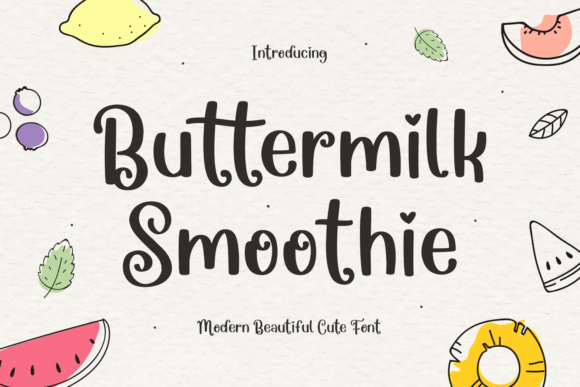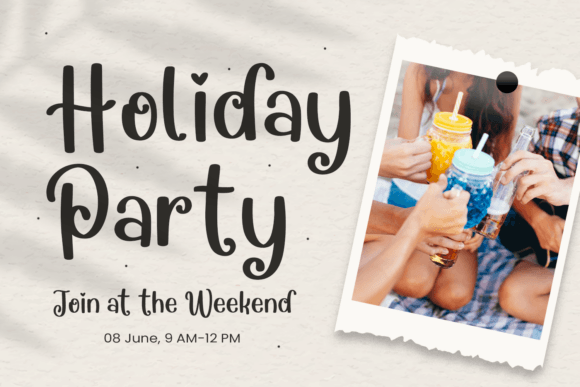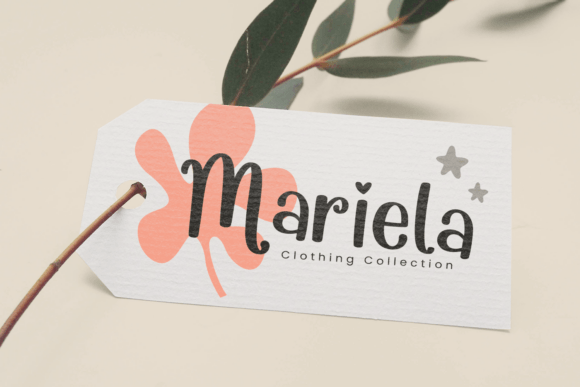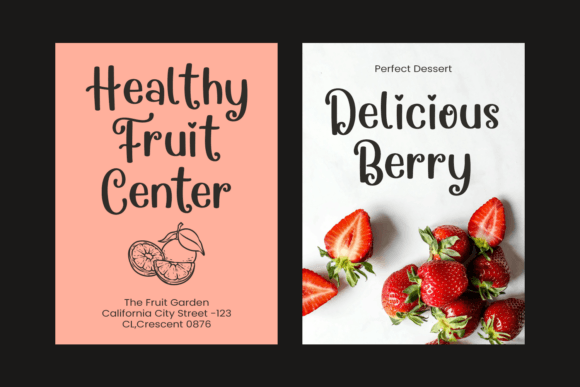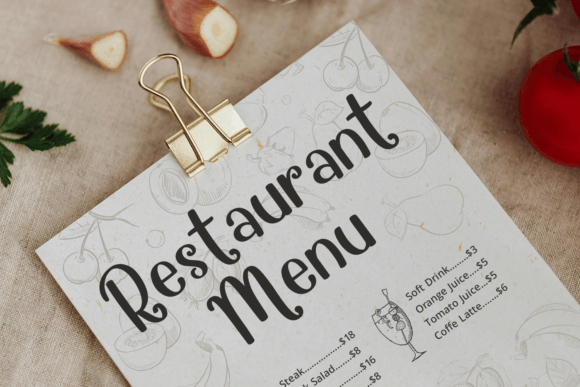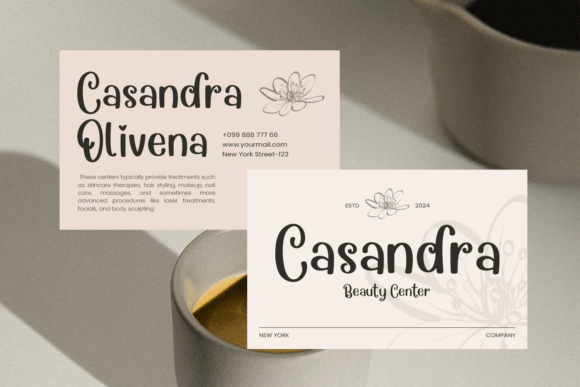
Introducing Buttermilk Smoothie Font: Add a Touch of Whimsy to Your Designs
Are you looking for a font that can add a dash of charm and warmth to your designs? Look no further than Buttermilk Smoothie, a delightful handwritten font that is sure to capture attention and bring smiles. This cute and whimsical typeface is perfect for designers and crafters who want to add a playful touch to their projects.
The Characteristics of Buttermilk Smoothie Font
Buttermilk Smoothie font boasts smooth curves and an inviting character that makes it perfect for a variety of applications. Its handwritten style exudes a sense of warmth and friendliness, making it ideal for designs that require a personal touch. The font’s whimsical nature also makes it perfect for festive posters, birthday banners, and other designs that celebrate food and drinks.
Buttermilk Smoothie font is incredibly versatile and can be used in a range of design applications. Here are a few ideas to get you started:
- Heartfelt Quotes: Add a touch of warmth and personality to your quotes with Buttermilk Smoothie font. Its smooth curves and inviting character make it perfect for sharing inspiring and uplifting messages.
- Festive Posters: Create eye-catching posters that celebrate food and drinks with Buttermilk Smoothie font. Its whimsical nature makes it perfect for designs that require a playful touch.
- Wedding Invitations: Make your wedding invitations truly special with Buttermilk Smoothie font. Its elegant and sophisticated style makes it perfect for formal events.
- Birthday Banners: Create personalized birthday banners that will make the birthday boy or girl feel special. Buttermilk Smoothie font is perfect for adding a playful touch to your designs.
Why Choose Buttermilk Smoothie Font?
So, why choose Buttermilk Smoothie font for your designs? Here are a few reasons:
- Unique and Whimsical: Buttermilk Smoothie font is a unique and whimsical typeface that will add a touch of personality to your designs.
- Easily Readable: Despite its playful nature, Buttermilk Smoothie font is easily readable, making it perfect for designs that require a clear and concise message.
- Versatile: Buttermilk Smoothie font can be used in a range of design applications, from formal events to playful designs.
Tips for Using Buttermilk Smoothie Font
Here are a few tips for using Buttermilk Smoothie font in your designs:
- Pair with Other Fonts: Buttermilk Smoothie font pairs perfectly with other fonts, such as sans-serif fonts. Experiment with different combinations to find the perfect look for your design.
- Use for Headings: Buttermilk Smoothie font is perfect for headings and titles. Its whimsical nature makes it perfect for grabbing attention.
- Add a Personal Touch: Use Buttermilk Smoothie font to add a personal touch to your designs. Its handwritten style makes it perfect for designs that require a personal touch.
In conclusion, Buttermilk Smoothie font is a delightful handwritten font that is sure to add a touch of charm and warmth to your designs. Its smooth curves and inviting character make it perfect for a variety of applications, from heartfelt quotes to festive posters. Whether you’re a designer or crafter, Buttermilk Smoothie font is a great addition to your font collection.